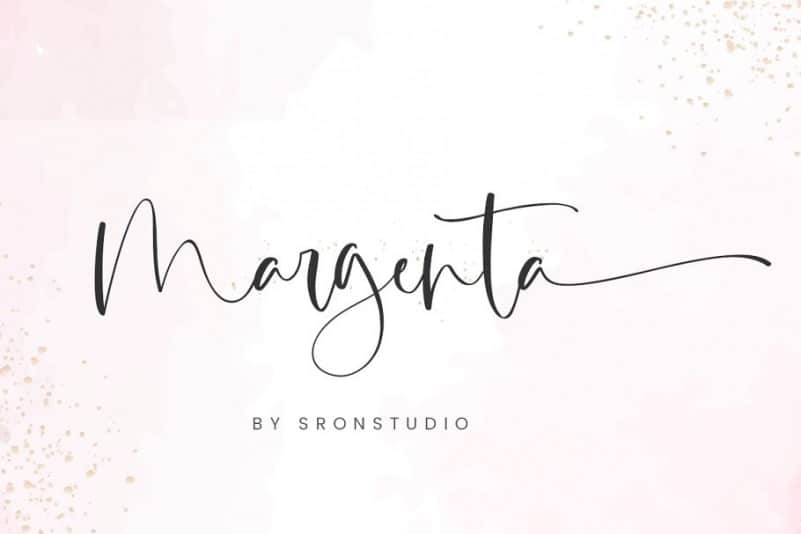
Margenta Calligraphy Font Free
Margenta Calligraphy Font is a chic hand calligraphy, smooth, modern and clasik, calligraphy wavy, which was created to meet the needs of your next design project. It’s designed and shared by Sronstudio. This typeface is a beautiful calligraphy font perfect for crafting, branding, invitation, stationery, wedding designs, social media posts, advertisements, product packaging, product designs, label, photography, watermark, special events or anything.
Margenta Calligraphy Font comes with full set of uppercase and lowercase letters, swash alternates, ligatures,multilingual symbols, numerals and punctuation.